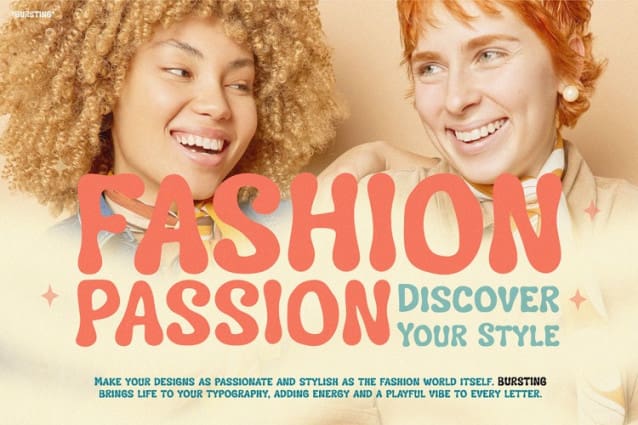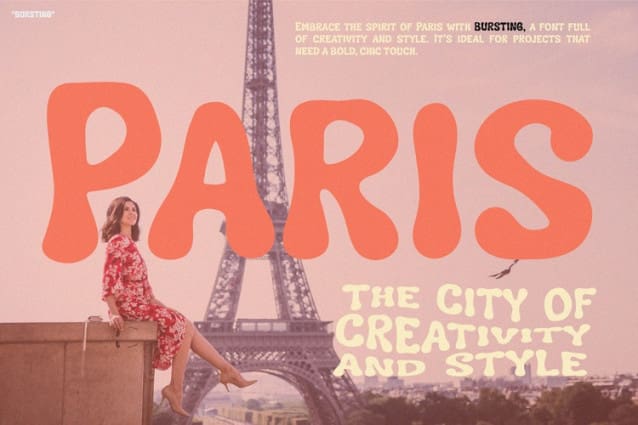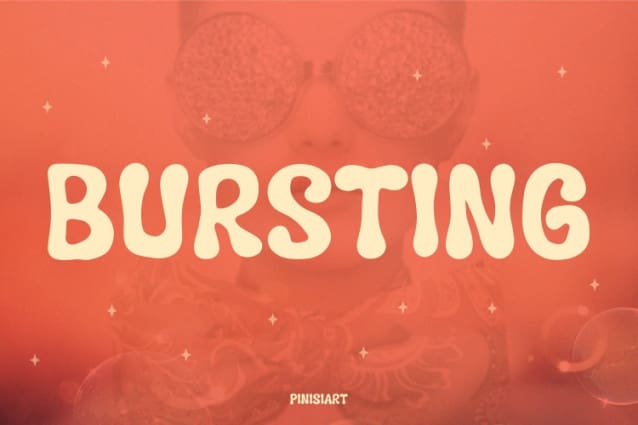
Bursting Display Font
Bursting Display Font is a bold and playful typeface that brings vintage charm to any design. With smooth, wavy letterforms and a bubbly personality, it effortlessly captures the essence of classic typography while adding a fresh twist. Moreover, its rounded edges and slightly irregular shapes create a warm, handmade feel, making it even more inviting.
This font stands out with its fun yet elegant curves. Additionally, the thick, rounded strokes ensure readability while keeping a funky, free-spirited character. Whether you need it for posters, branding, or social media graphics, Bursting Display makes your message pop with style and energy.
Furthermore, Bursting Display is highly versatile. It works well for bold headlines and creative typography projects alike. The font blends seamlessly into retro themes, adding a nostalgic yet modern touch. As a result, its smooth flow and organic shapes create a dynamic visual effect that keeps viewers engaged.
If you’re looking for a way to capture the charm of the ‘70s, ‘80s, or early ‘90s, Bursting Display Font is the perfect choice. Not only does it add energy and fun, but it also remains stylish and adaptable. You can pair it with bright colors and textured backgrounds for a vintage vibe. Alternatively, mix it with minimalist elements for a striking contrast.